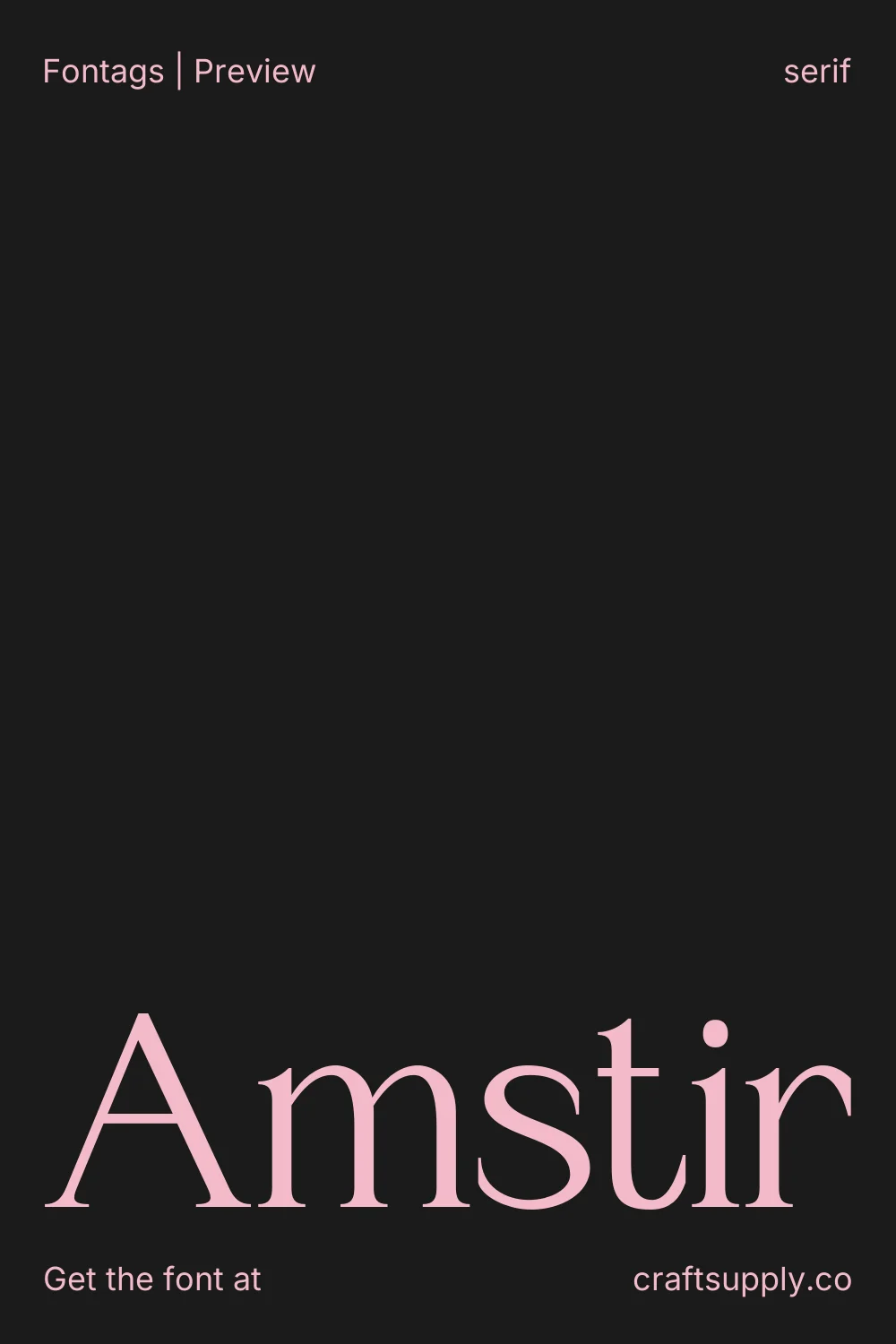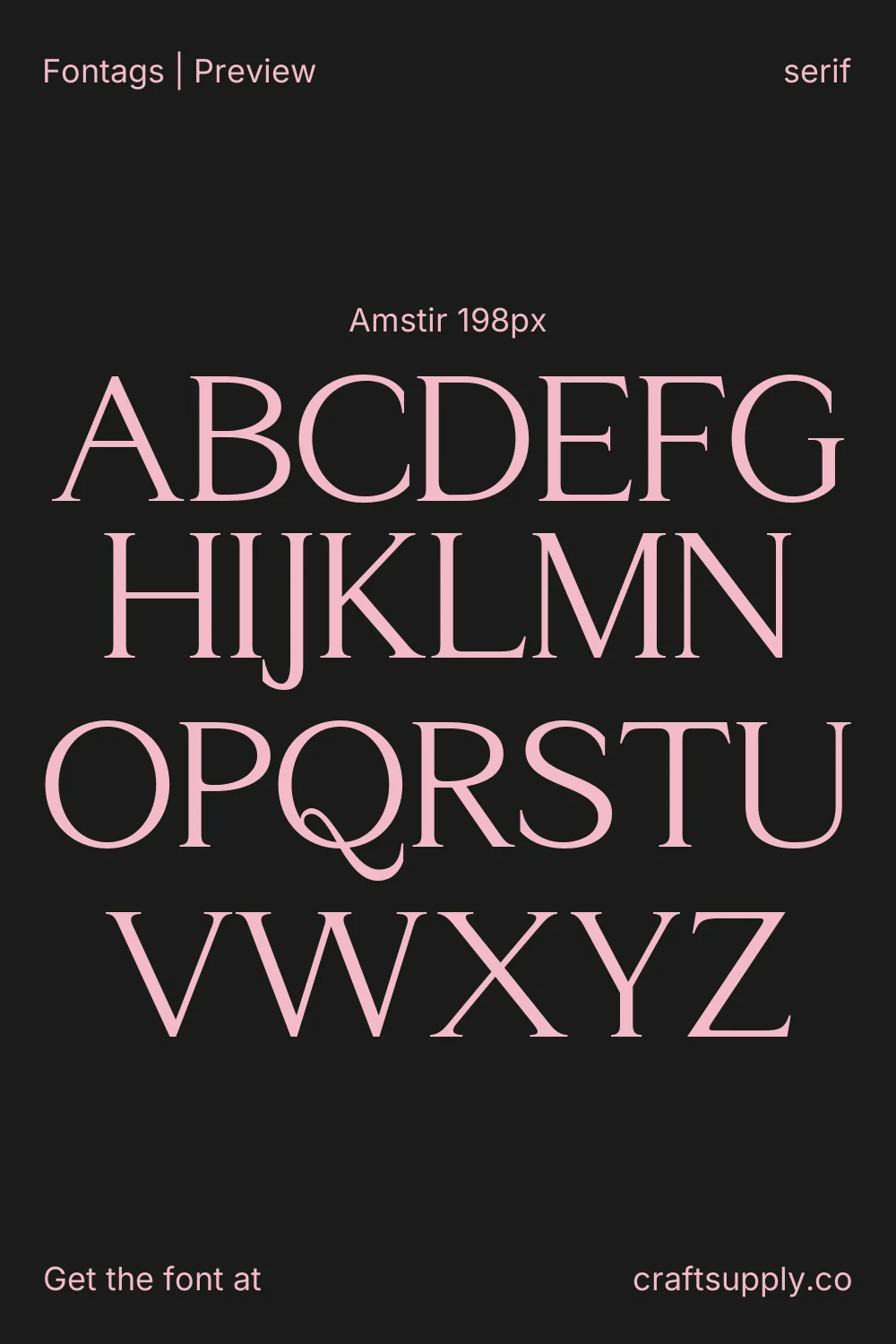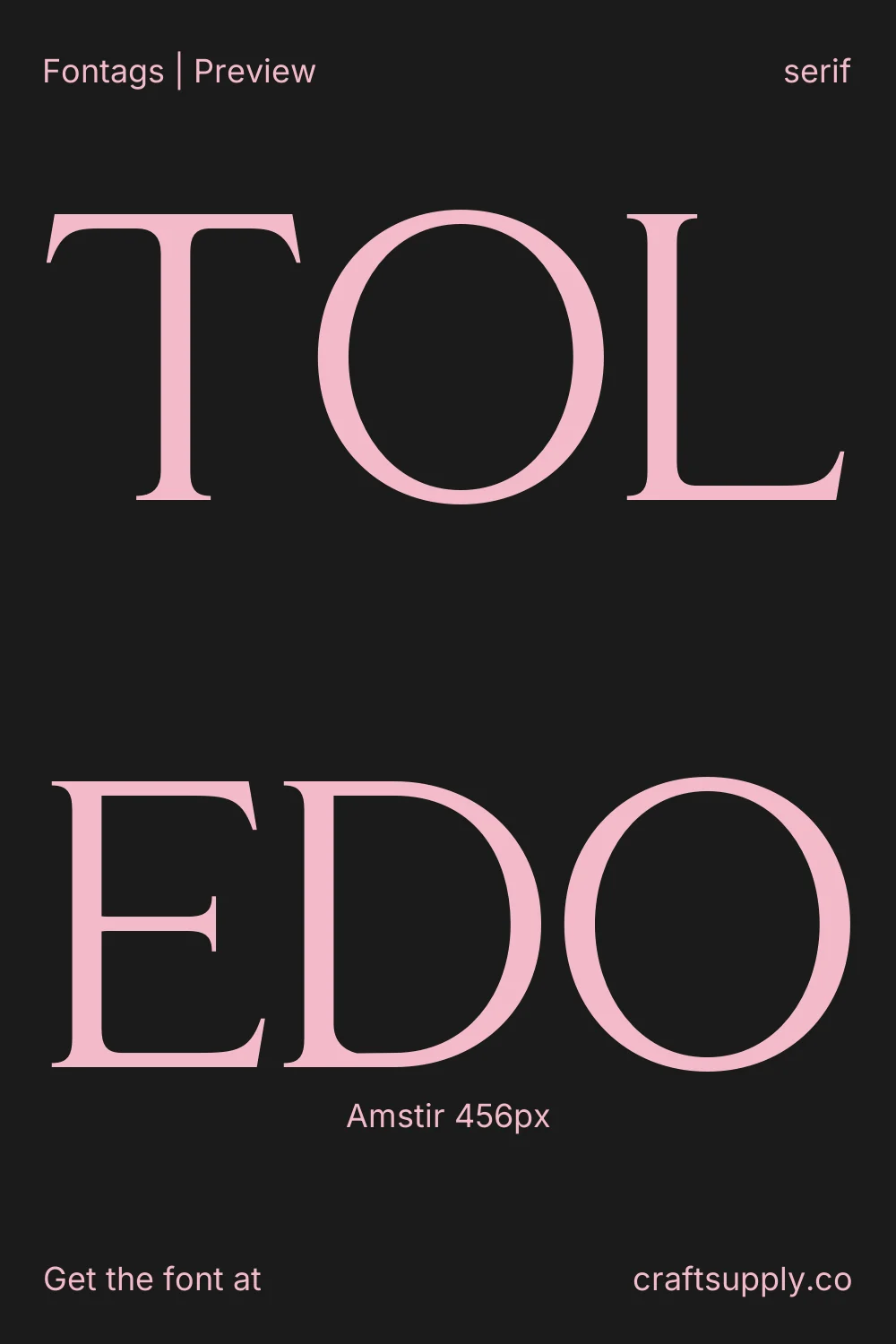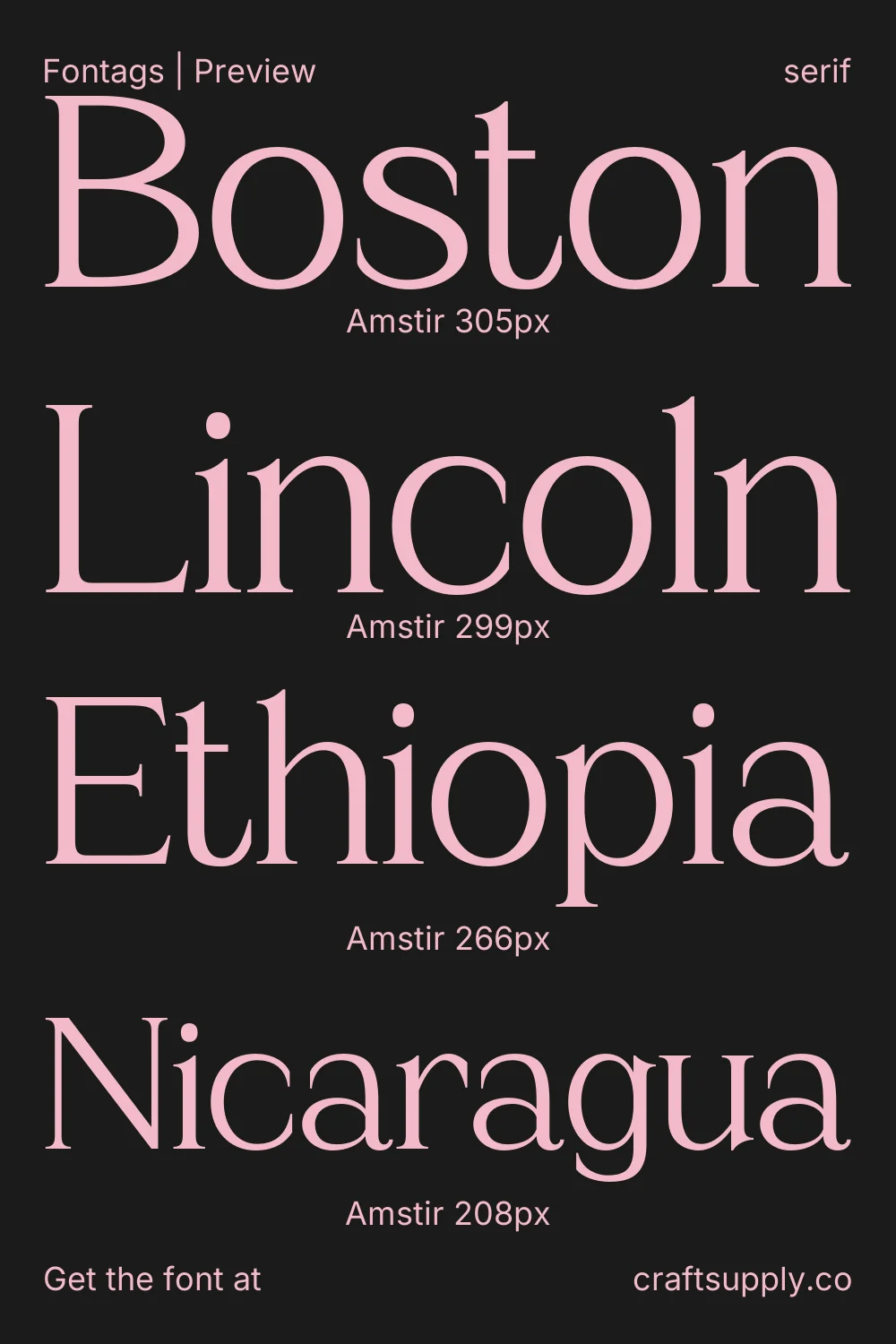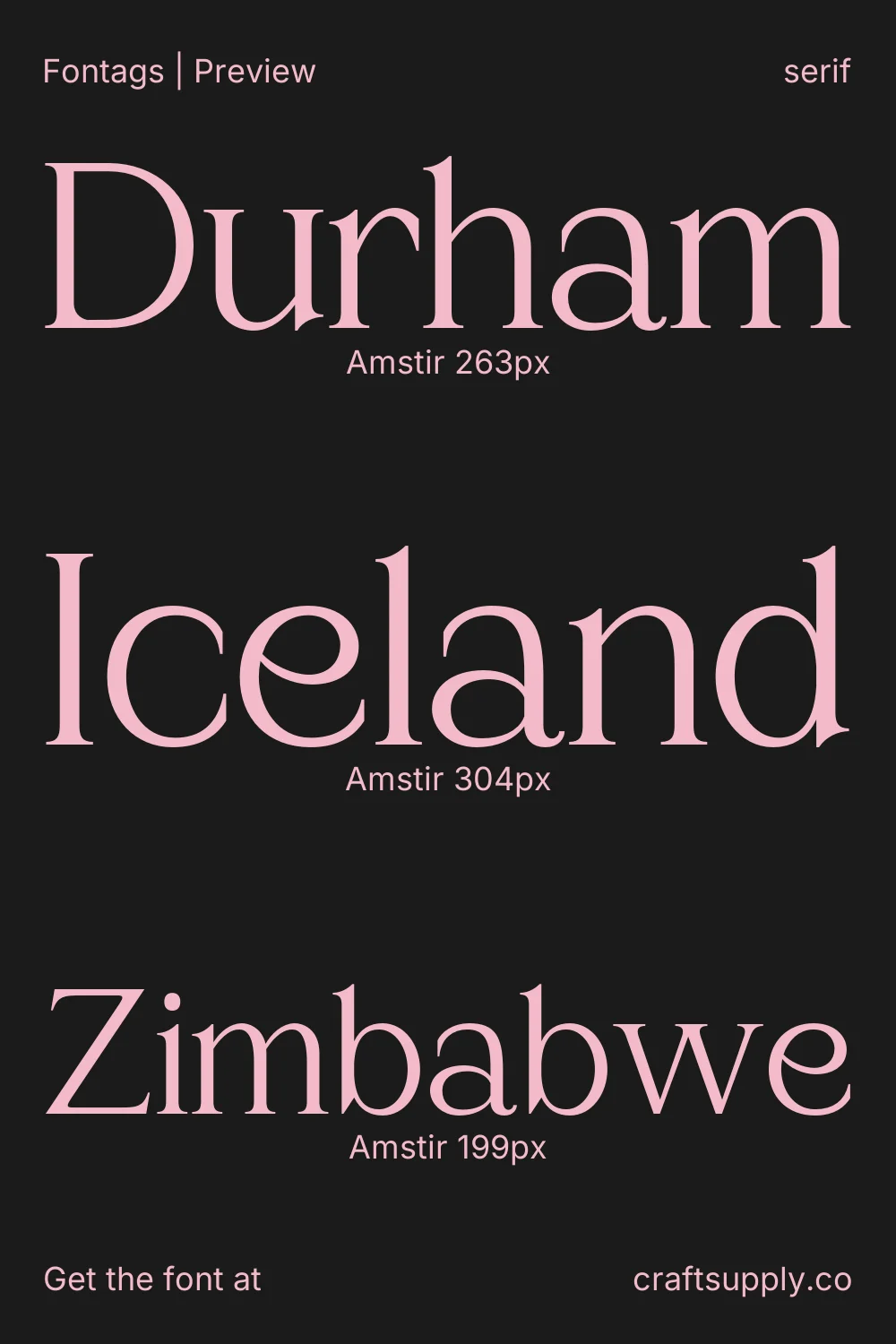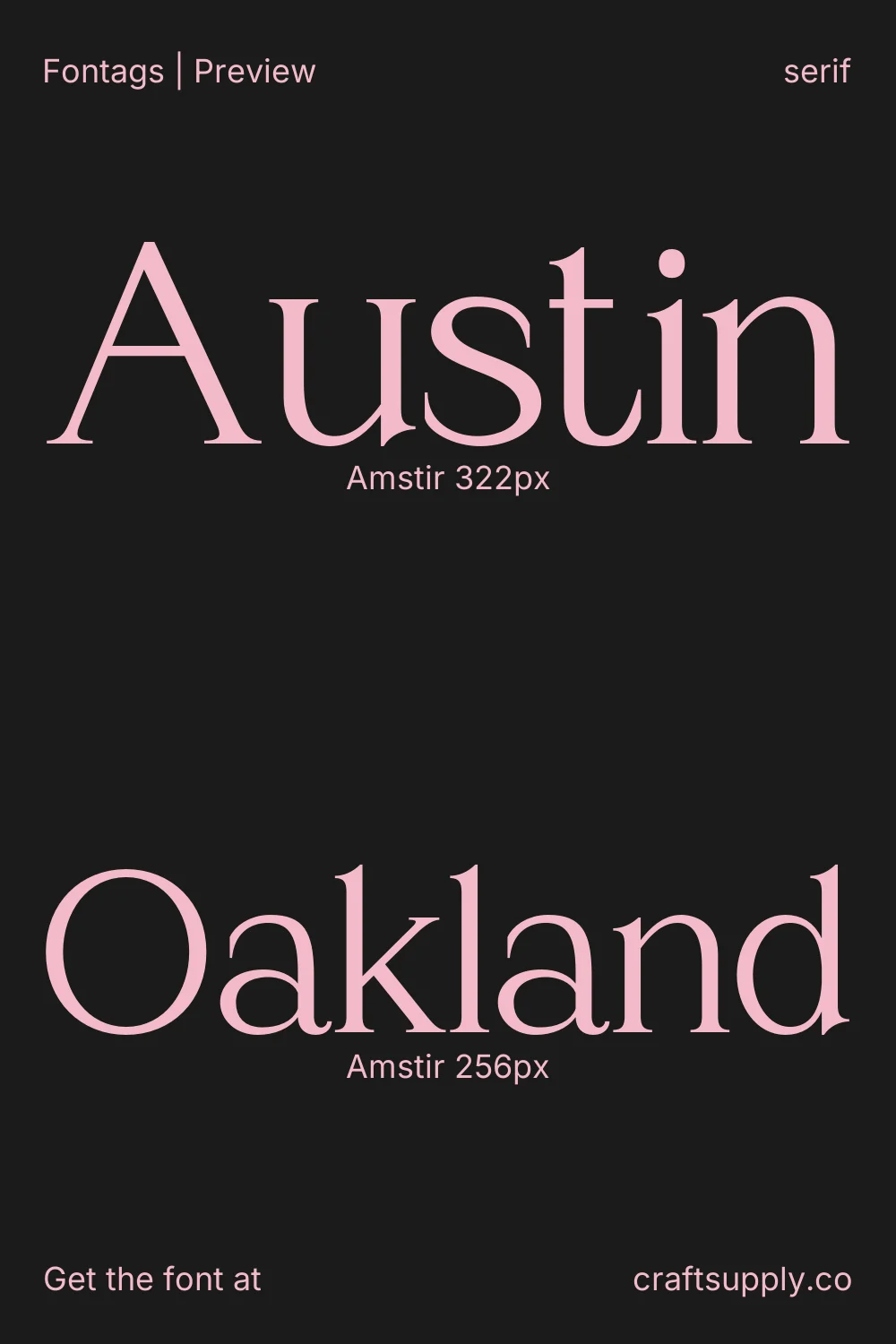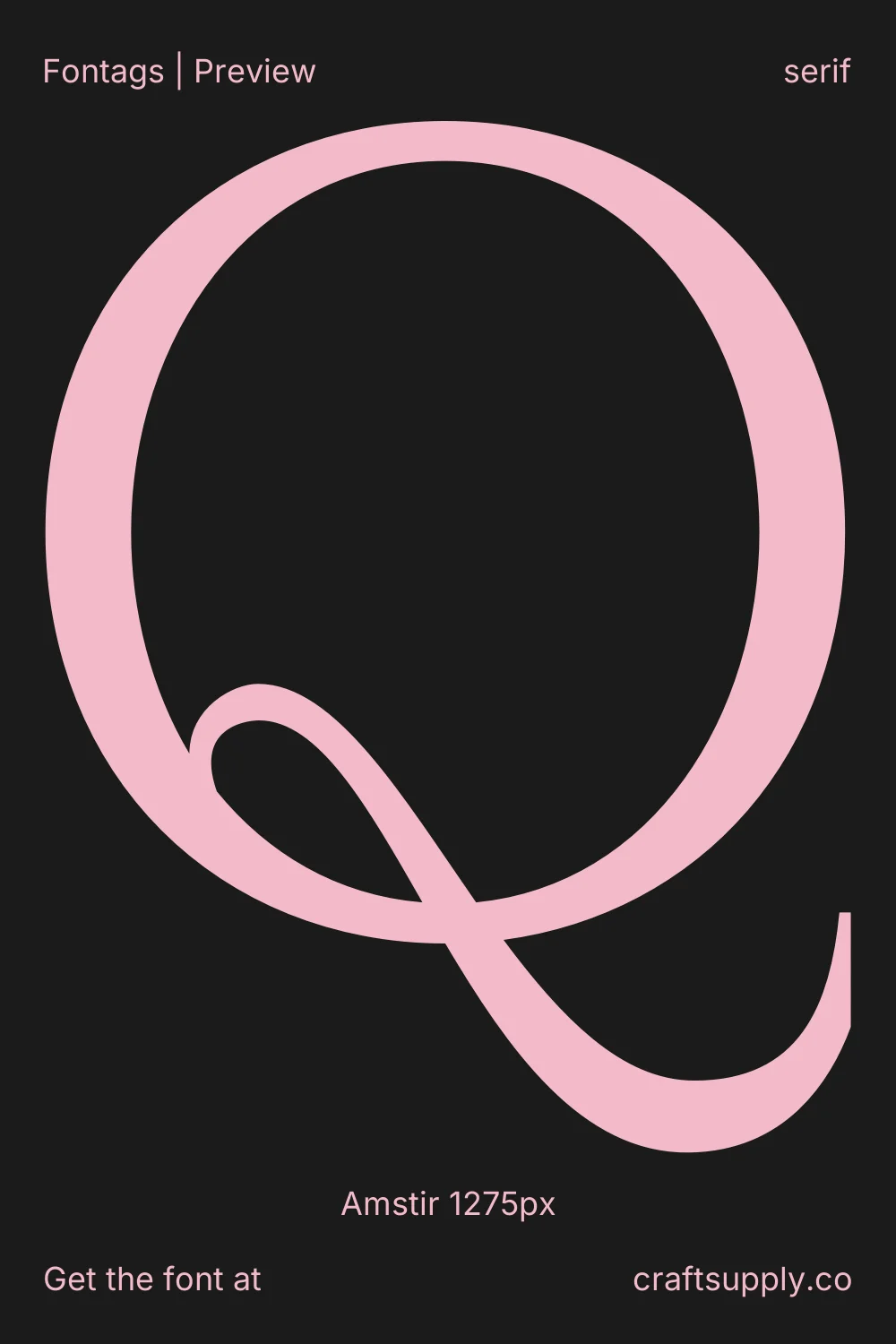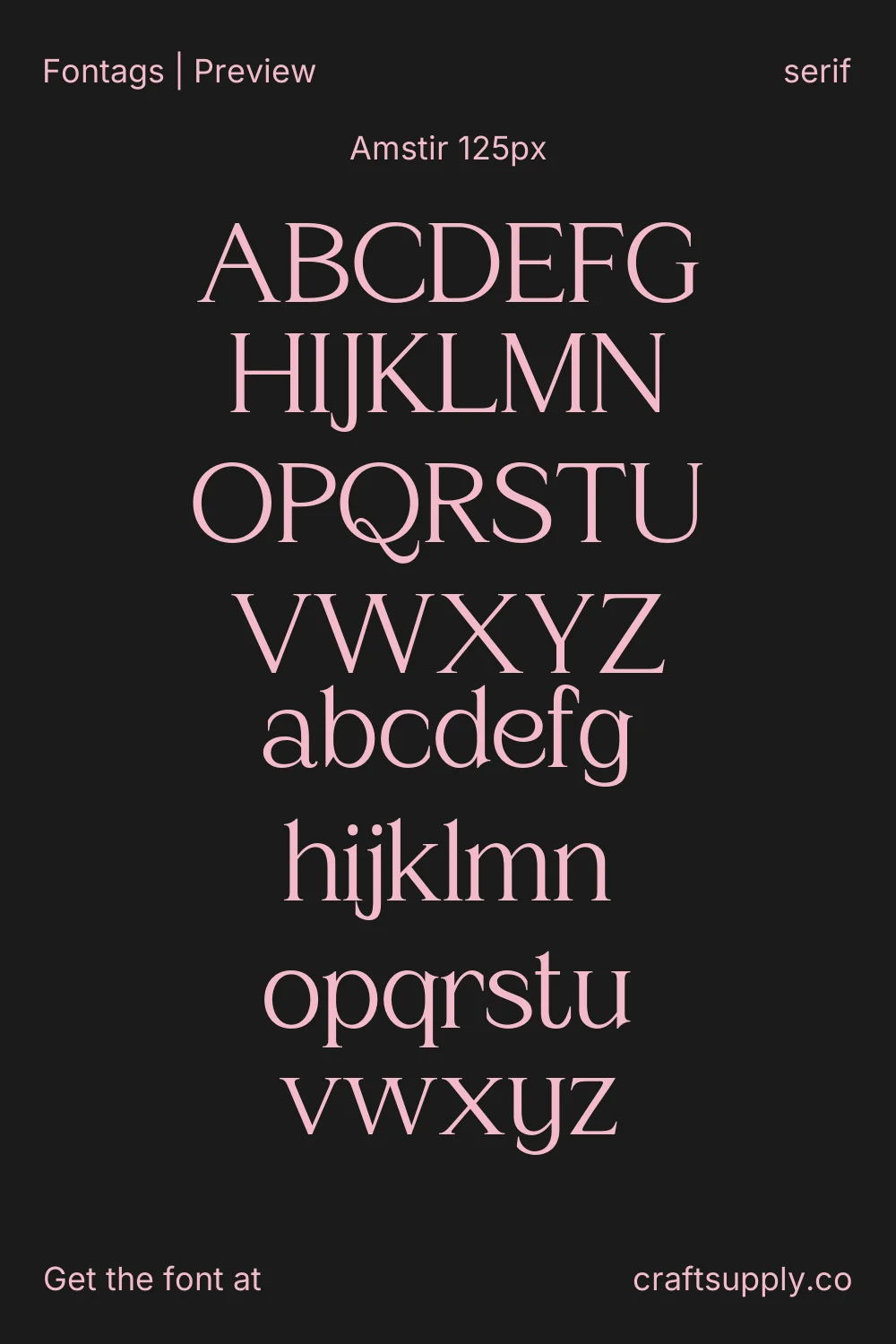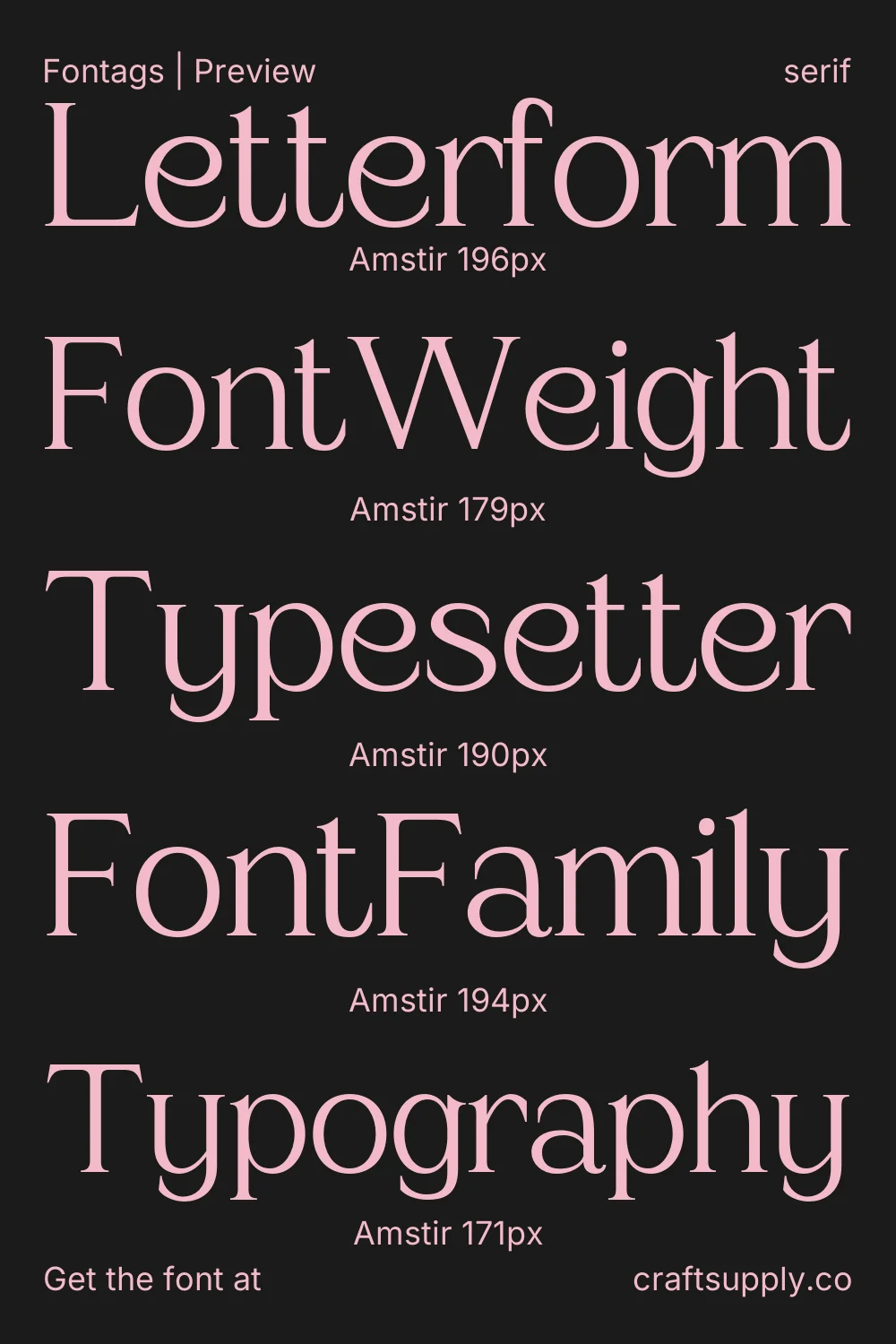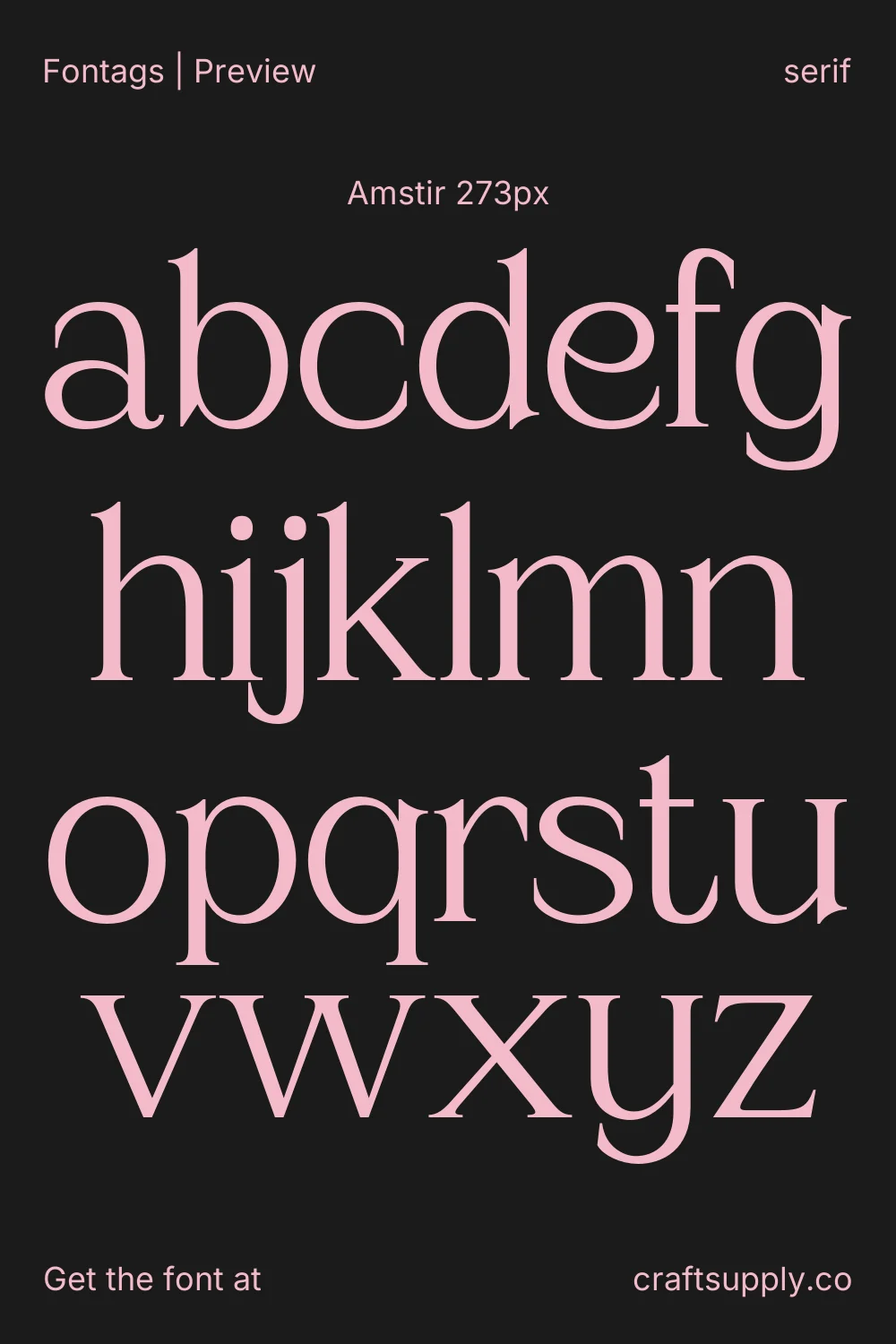
Amstir
Amstir is a classic serif typeface designed for editorial use, featuring elegant lines and refined letterforms that convey sophistication and tradition. With both regular and italic styles, it includes uppercase and lowercase letters, numerals, punctuation, and multilingual support. This versatile typeface works well for greeting cards, packaging, brand identity, posters, and any design project requiring a timeless, eye-catching aesthetic.